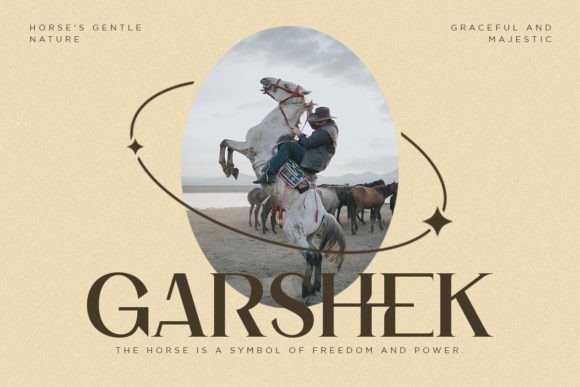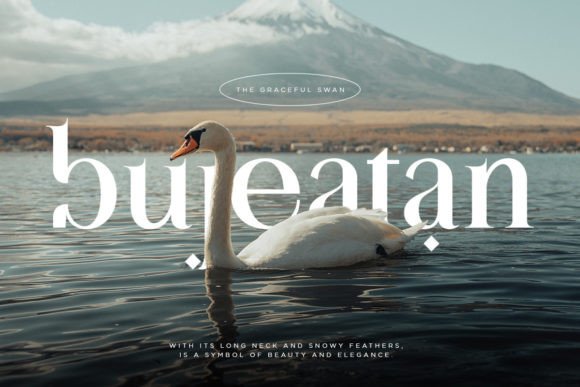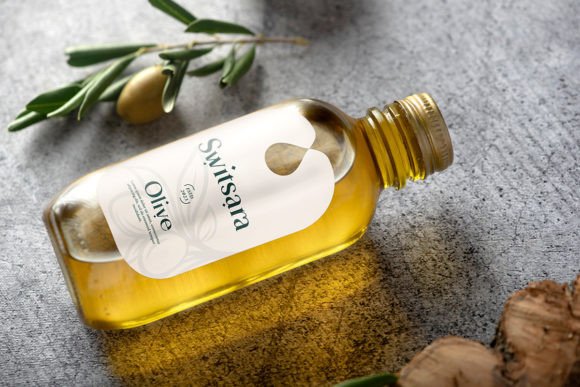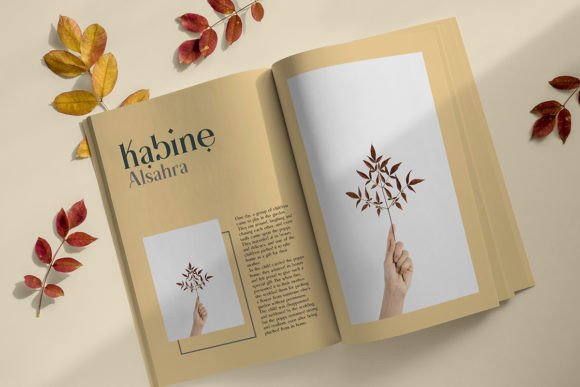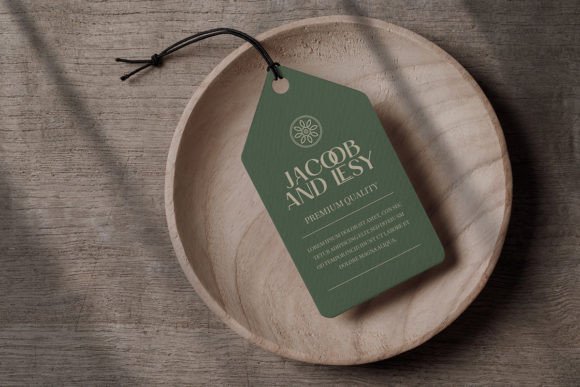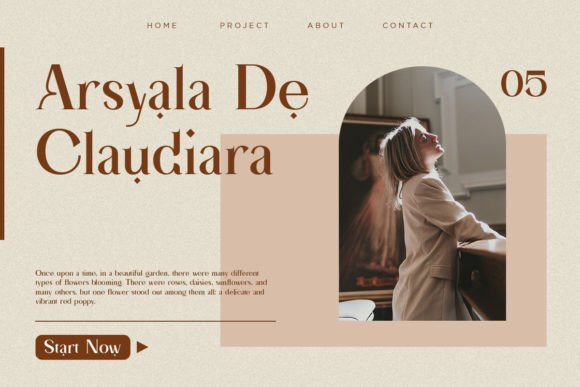
Introducing Alhadara Font: The Epitome of Style and Luxury
In the world of typography, fonts play a crucial role in conveying the tone and personality of a brand or design project. For designers and crafters seeking to elevate their work with a touch of elegance and sophistication, Alhadara Font is an exceptional choice. This meticulously crafted serif font is designed to exude luxury and refinement, making it perfect for high-end branding, editorial layouts, and refined graphic design projects.
The Design Philosophy of Alhadara
Alhadara Font strikes a perfect balance between classic and contemporary design elements, resulting in a timeless and versatile typeface. Its serif letters are carefully crafted to convey a sense of tradition and heritage, while its sleek and refined lines ensure a modern and sophisticated look. This harmonious blend of old and new makes Alhadara an excellent choice for designers seeking to create luxurious and high-end visual identities.
Key Features of Alhadara Font
• Elegant Serif Letters: Alhadara’s serif letters are designed to exude elegance and sophistication, making it perfect for high-end branding and refined graphic design projects.
• PUA Encoding: Alhadara is PUA encoded, which means you can access all the glyphs and ligatures with ease, giving you greater flexibility and creative control.
• Classic and Contemporary Design Elements: Alhadara’s design combines classic and contemporary elements, resulting in a timeless and versatile typeface.
• High-End Branding: Alhadara is ideal for high-end branding projects, such as luxury fashion, hospitality, and premium product design.
• Editorial Layouts: Alhadara’s elegant and refined design makes it perfect for editorial layouts, such as magazine and newspaper design.
Why Choose Alhadara Font?
For designers and crafters seeking to elevate their work with a touch of luxury and sophistication, Alhadara Font is an exceptional choice. Here are just a few reasons why:
• Unique and Memorable: Alhadara’s elegant and refined design ensures that your brand or design project stands out from the crowd and leaves a lasting impression.
• Versatile: Alhadara’s timeless design makes it suitable for a wide range of design applications, from high-end branding to editorial layouts.
• Easy to Use: Alhadara is PUA encoded, making it easy to access all the glyphs and ligatures, and ensuring a seamless design experience.
Design Applications for Alhadara Font
Alhadara Font is suitable for a wide range of design applications, including:
• High-End Branding: Use Alhadara to create luxurious and sophisticated brand identities that exude elegance and refinement.
• Editorial Layouts: Alhadara is perfect for editorial layouts, such as magazine and newspaper design, where a touch of elegance and sophistication is desired.
• Graphic Design Projects: Alhadara’s refined design makes it ideal for refined graphic design projects, such as packaging design, advertising, and marketing materials.
In conclusion, Alhadara Font is an exceptional choice for designers and crafters seeking to elevate their work with a touch of luxury and sophistication. Its elegant and refined design, combined with its versatility and ease of use, make it perfect for high-end branding, editorial layouts, and refined graphic design projects. With Alhadara, you can create visually stunning designs that exude elegance and refinement, and leave a lasting impression on your audience.